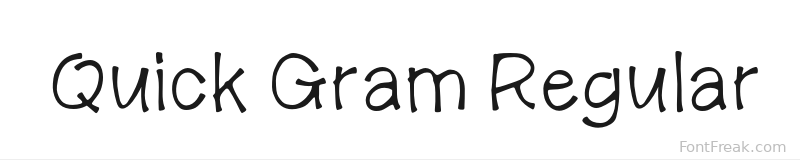
Quick Gram Regular
Quick Gram Regular, designed by MJType in 2023, is a charming handwritten font that brings a touch of personality to any design project. This font falls under the script category, characterized by its fluid strokes and warm, approachable nature. With a moderate stroke weight and gentle curves, Quick Gram Regular achieves a balance between legibility and artistic flair. The spacing is thoughtfully designed, allowing for easy reading while maintaining an organic flow that mimics natural handwriting.
This versatile font is ideal for a variety of use cases. It works beautifully on wedding invitations, imparting a personal touch to the celebration. For small businesses, Quick Gram Regular can enhance the uniqueness of restaurant menus or coffee shop branding, making the offerings feel inviting and homey. Content creators can utilize this font for blog headings or social media graphics, where a friendly, informal tone is desired. Additionally, Quick Gram Regular is perfect for crafting heartfelt greeting cards or personalized notes, adding a customized feel to any message.
The primary audience for Quick Gram Regular includes graphic designers seeking to elevate their projects with a distinctive typeface, small business owners wanting to create memorable branding, and content creators who wish to engage their audience with a warm, relatable aesthetic.
What sets Quick Gram Regular apart is its ability to blend simplicity with character, making it a go-to choice for those looking for an accessible yet stylish font. With the Quick Gram Regular font free download, you can easily incorporate this delightful typeface into your next creative endeavor, ensuring your designs stand out with a friendly and inviting appeal.